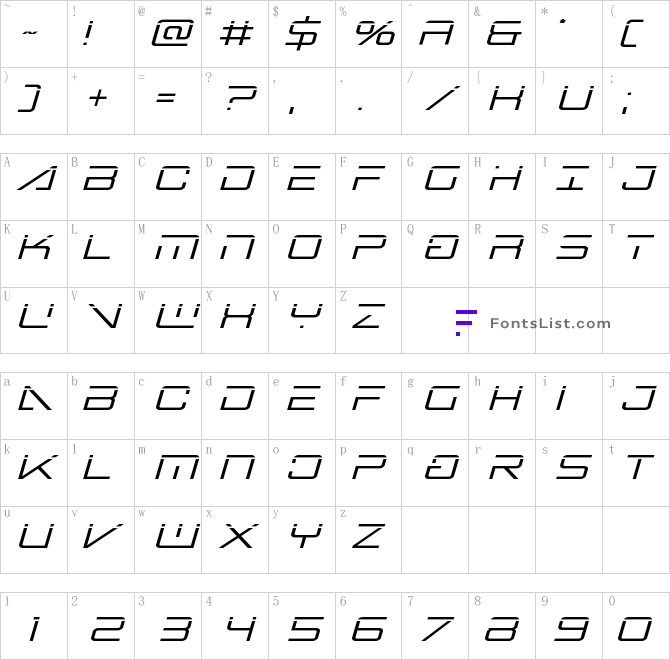
- Font Name:Banshee Pilot Laser Italic
Banshee-Pilot-Laser-Italic.ttf is a very beautiful artistic font, Banshee-Pilot-Laser-Italic.ttf is widely used in the design and printing of various books and pictures,Banshee-Pilot-Laser-Italic.ttf has a strong visual impact,Banshee-Pilot-Laser-Italic.ttf is a commonly used font in newspapers, magazines and books, and is used in posters, e-commerce Poster design, store design, logo design, font design and other fields.Banshee-Pilot-Laser-Italic.